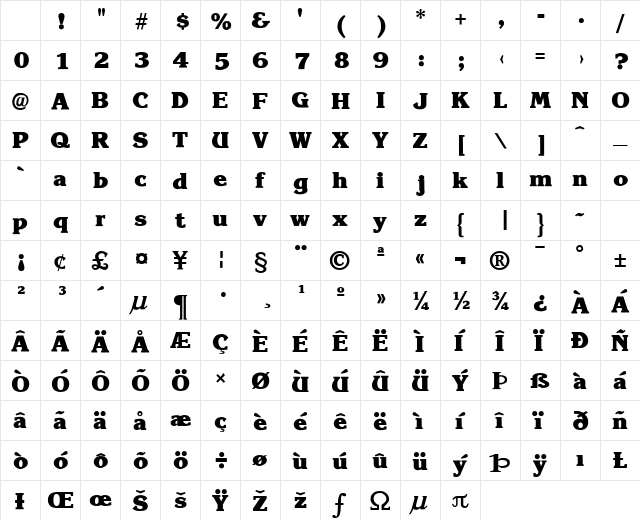
Krone ExtraBold
Krone Family
Krone ExtraBold
Design Context for Krone
Krone is a composed and adaptable typeface that performs quietly and consistently across a wide range of design contexts. Its bold stroke weight gives it real presence on the page.